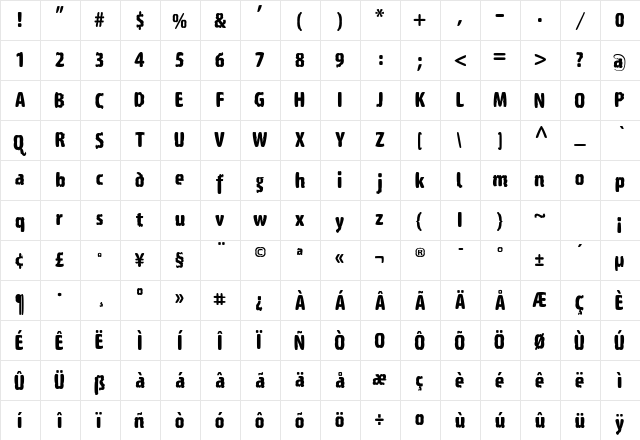
Witches Regular
Design Context for Witches Typeface
Witches offers clean, dependable letterforms without strong stylistic allegiance, making it a practical choice for designers who need flexibility.
Pro Tip: Use Witches in both headline and body roles to test its range before committing to a single application.